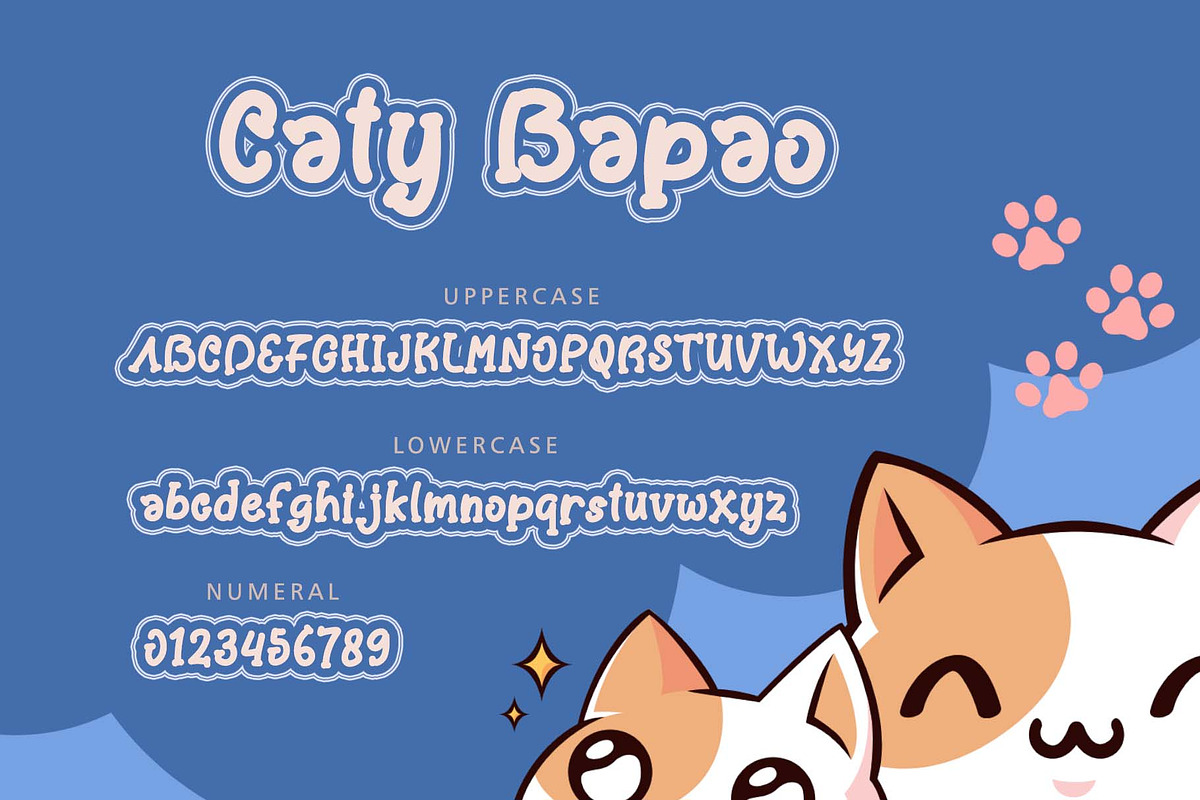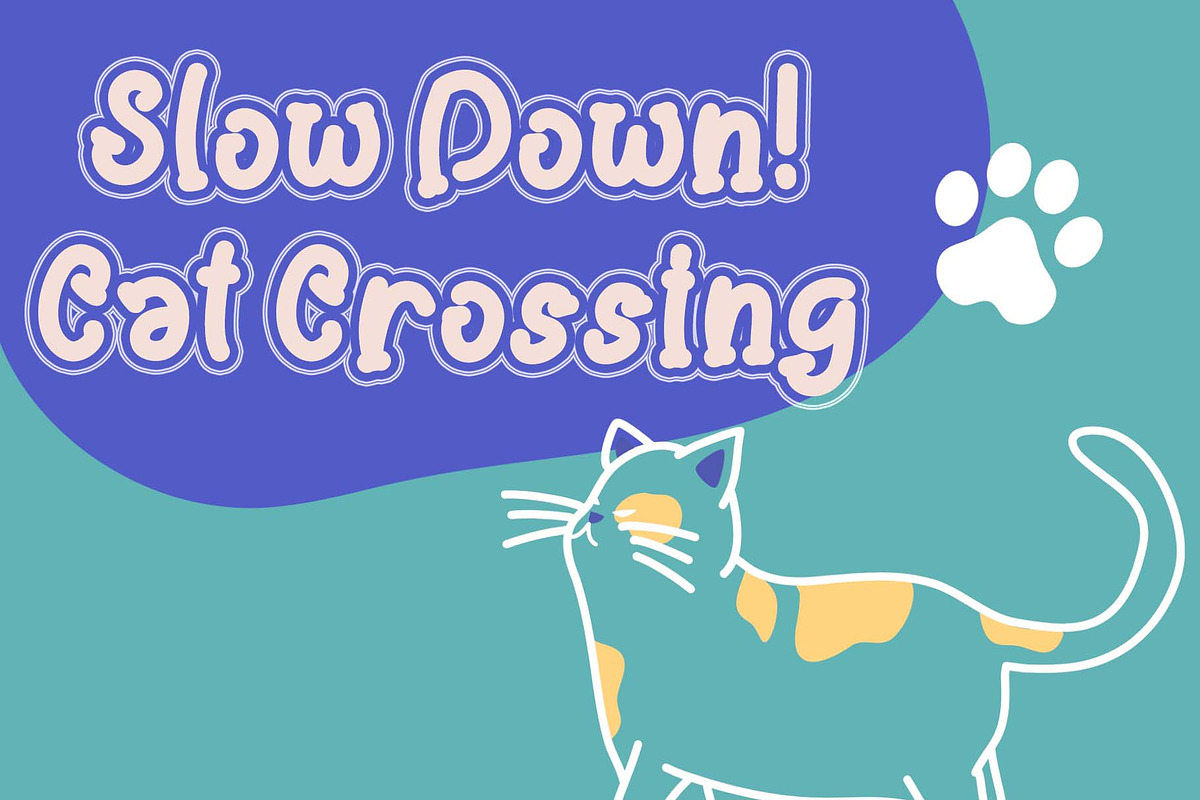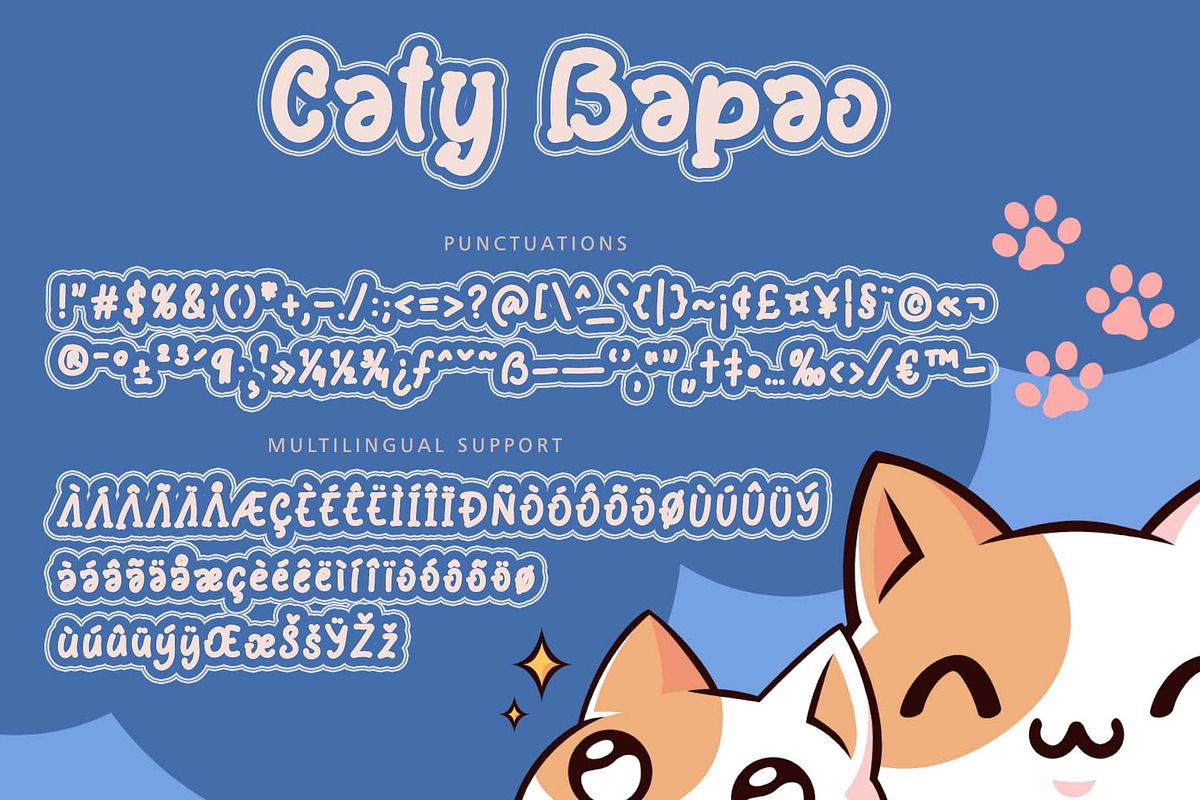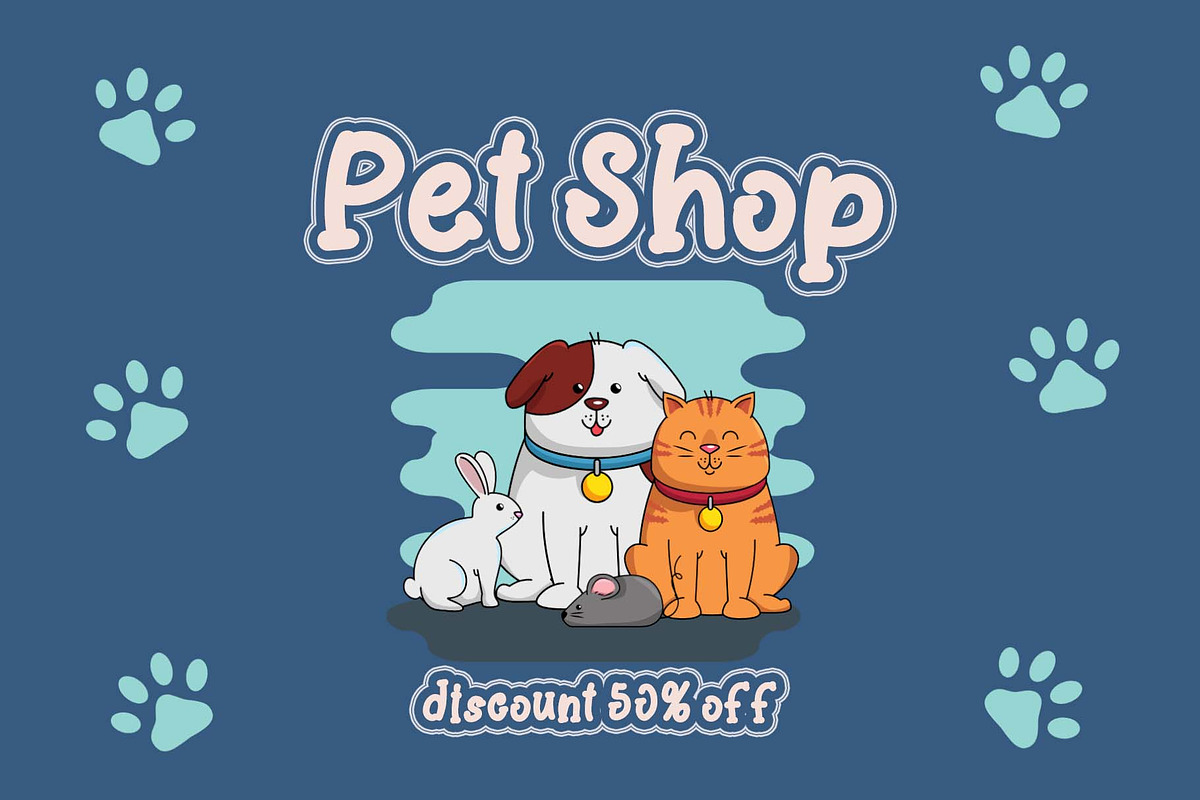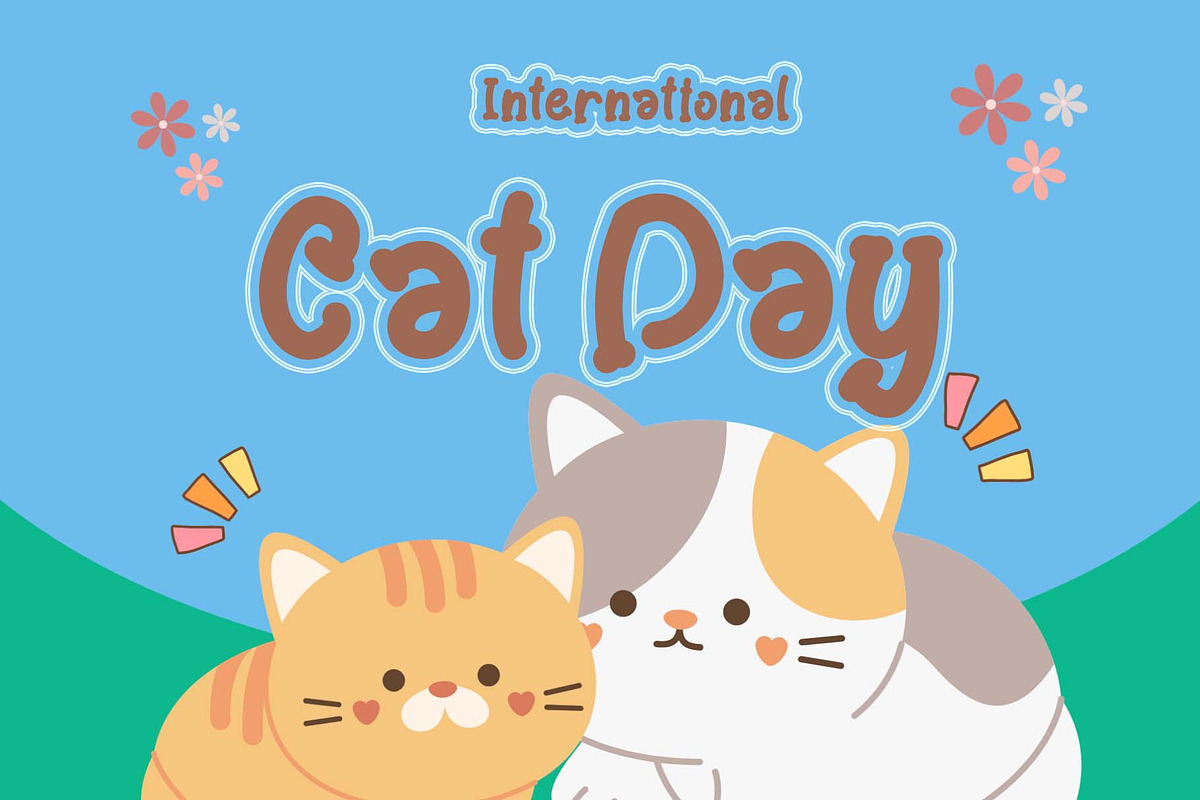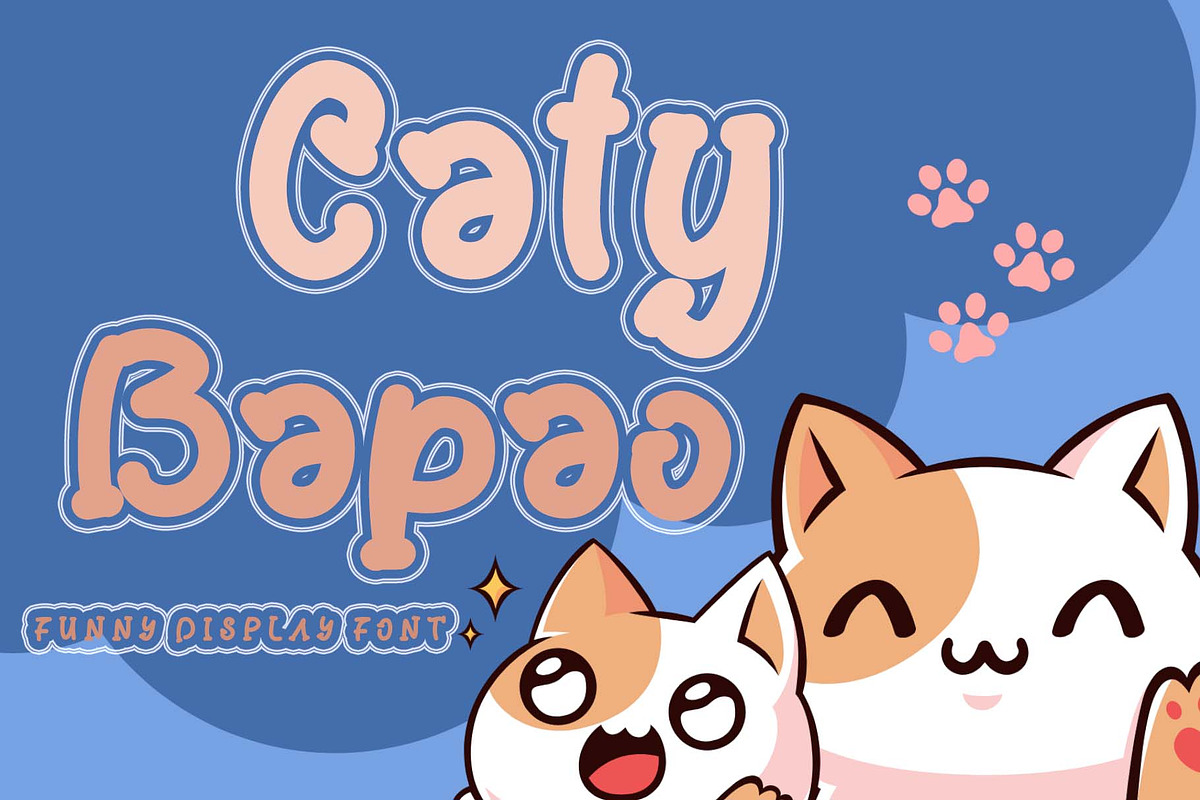
Caty Bapao
"Caty Bapao" is a cute and unique display font. It comes with uppercase, lowercase, numbers, punctuation, and multilingual support. It is perfect for animation, cartoon, comic, christmas, banner, winter, birthday, sticker, logo, game, branding, poster, thanksgiving, international cat day, etc.